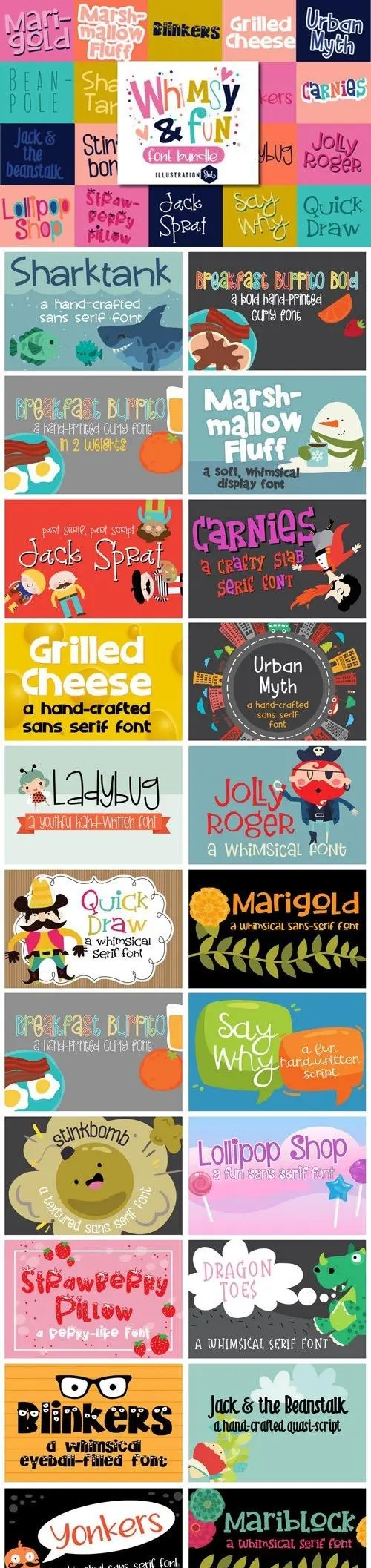
Whimsy & Fun Font Bundle
The Whimsy & Fun Font Bundle is a delightful collection of playful and creative typefaces designed to add a touch of charm to your projects. This bundle features a variety of font styles, including script, display, and sans-serif options, each crafted to bring a unique personality to your designs.
• Multiple font styles: script, display, and sans-serif
• Various weights and styles for versatility
• Includes both uppercase and lowercase letters
• Designed with legibility in mind
• Ideal for branding, logos, web, print, and UI design
• Combine different styles from the bundle for a unique look
• Use in invitations, posters, and social media graphics
• Experiment with sizes and colors to match your theme